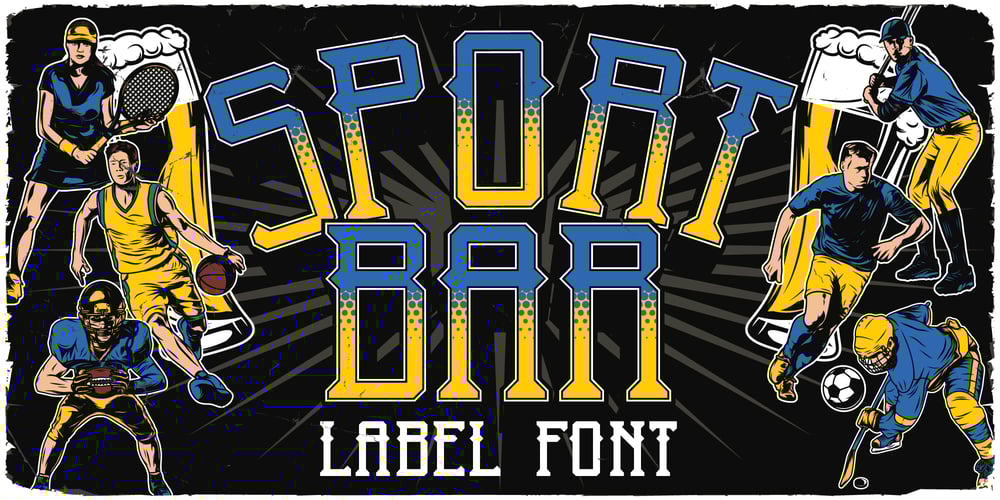
Sport Bar Font Family was designed by Oleg Voznyy and published by Vozzy. Sport Bar contains 6 styles and family package options. Introducing original label font named Sport Bar. This font has a wide languages support with west european and cyrillic characters (check out all available characters on previews). The font family has six styles: Regular, Contour, Fill1,Fill2, Rough1 and Rough2. This font will look good on any vintage styled designs like a poster, T-shirt, label, logo, etc.